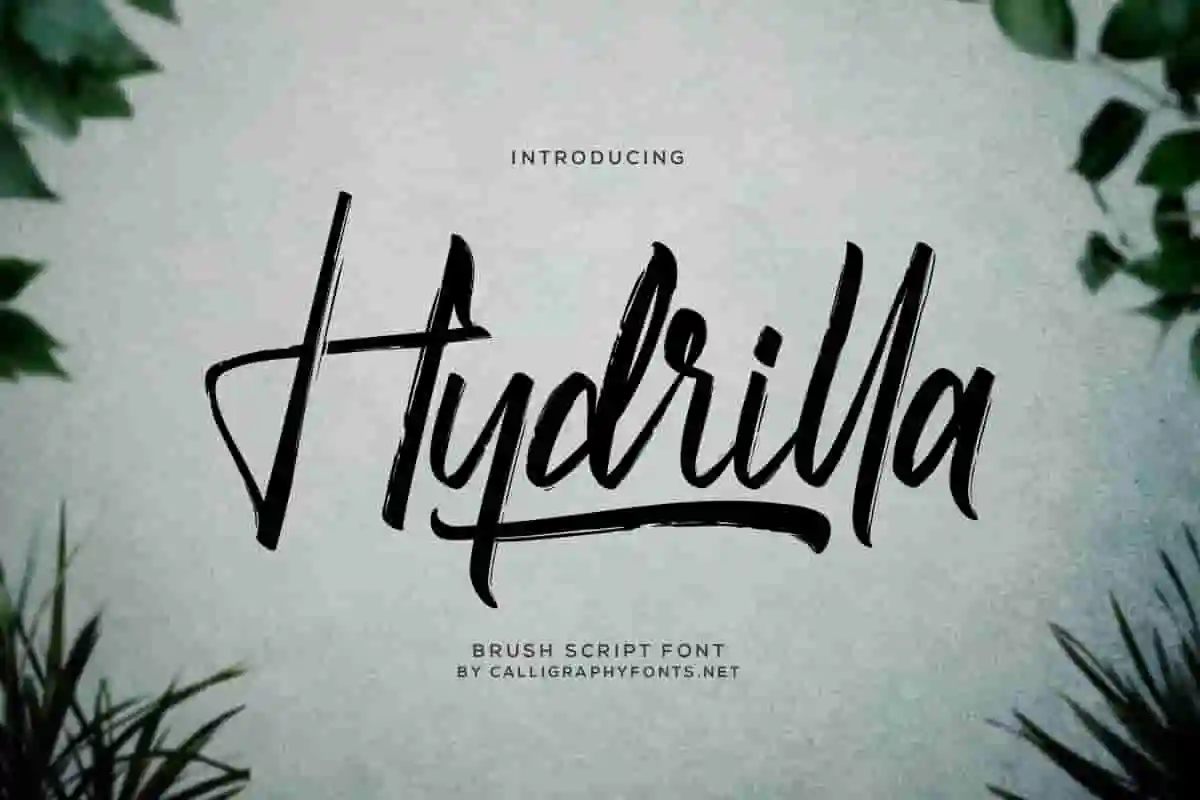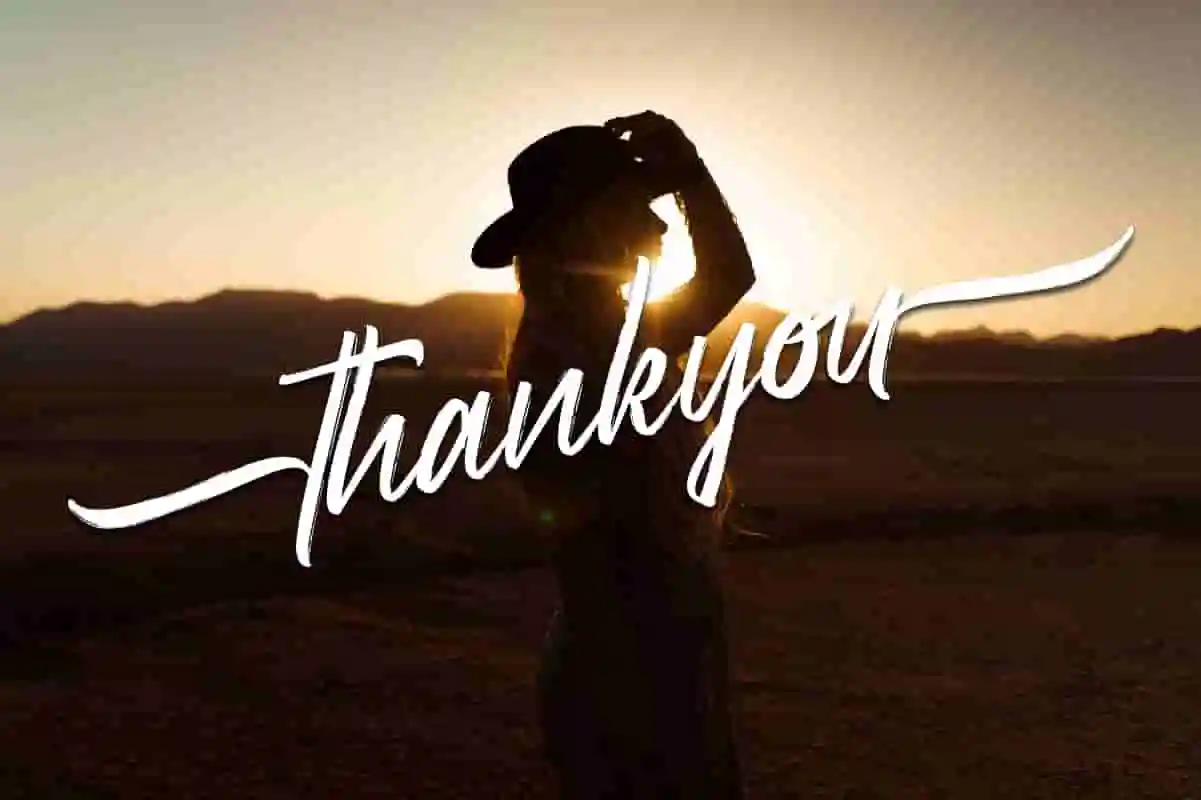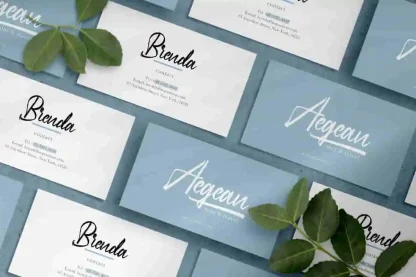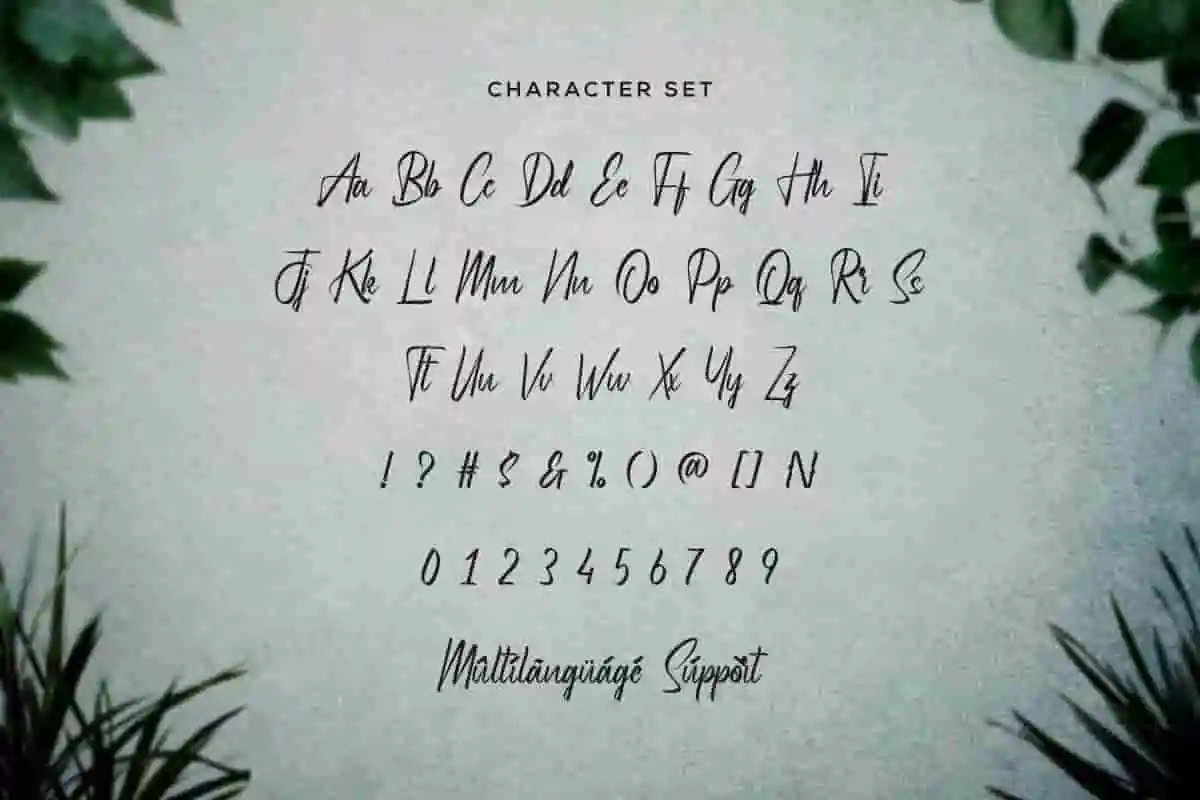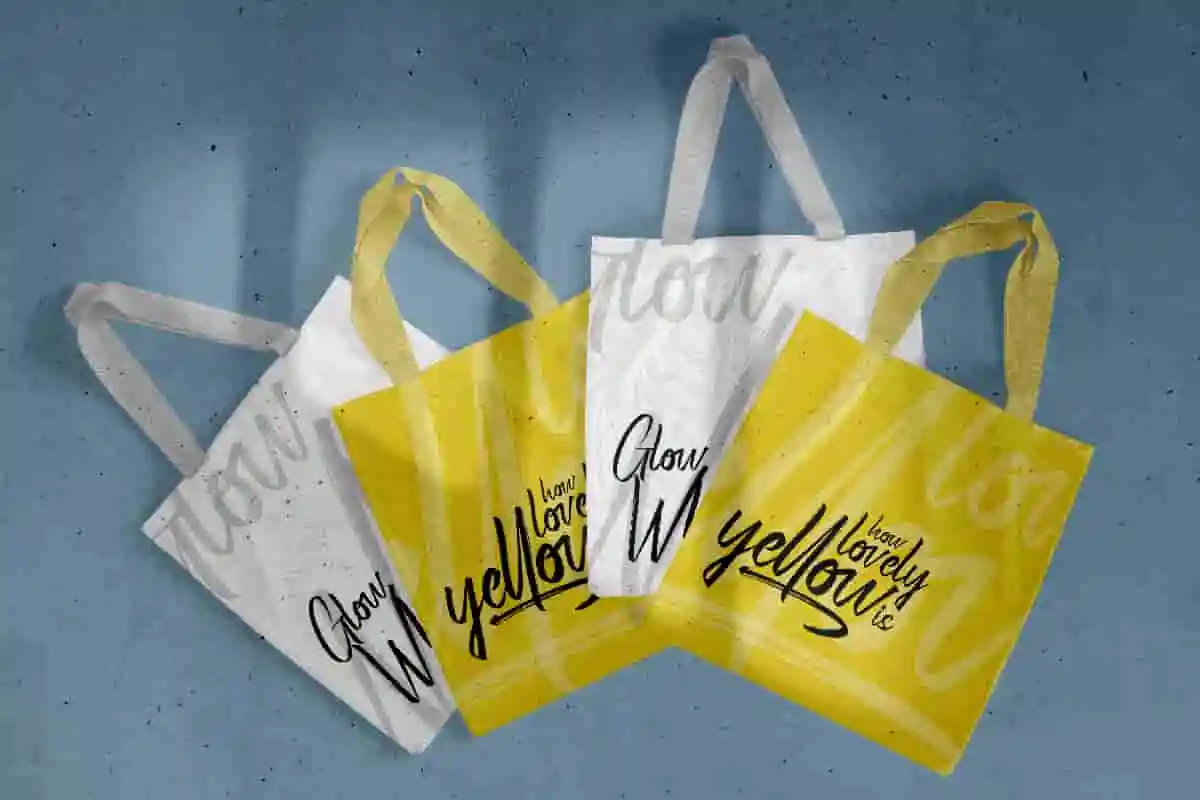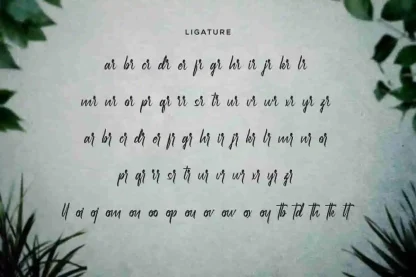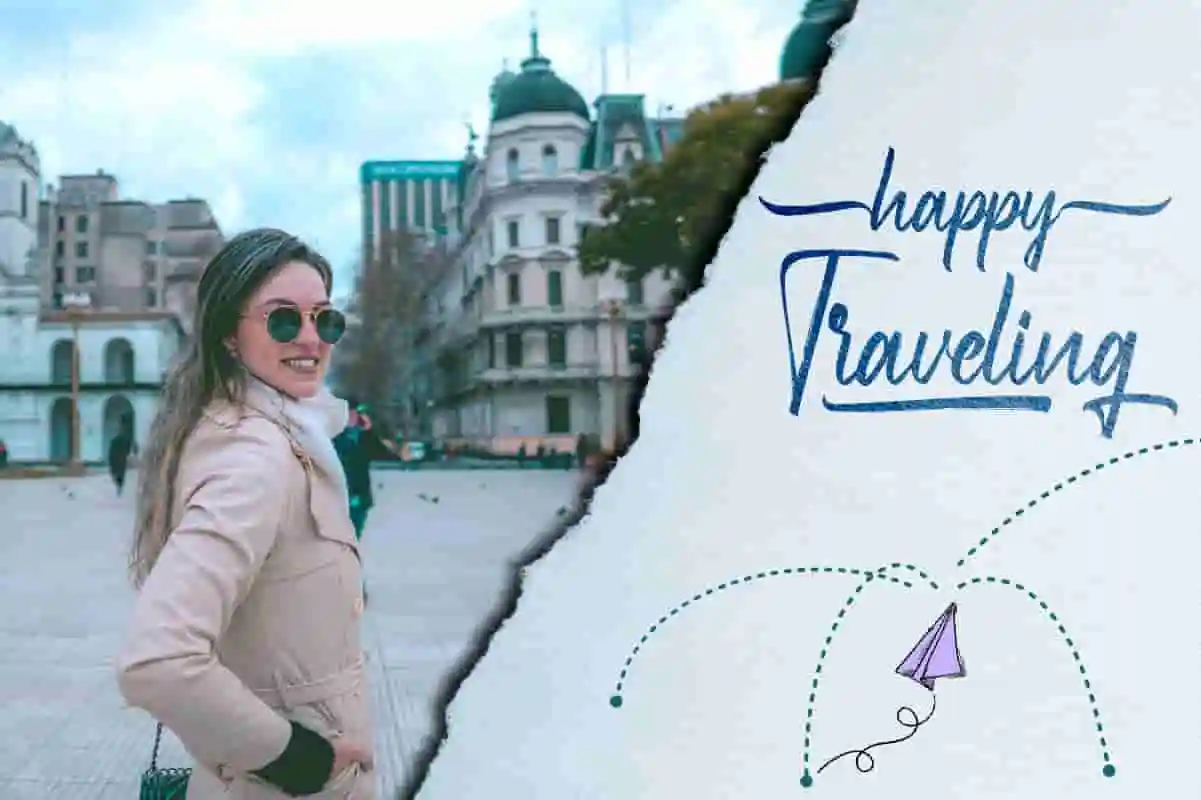
Hydrilla Textured Brush Font
Hydrilla Font is a stunning textured brush font by CalligraphyFonts.net, Buy License to use it for Commercial purposes. Awesome for branding projects, homeware designs, product packaging – or simply as a stylish text overlay to any background image.
Hydrilla Textured Font is a brush font with a unique texture; delivering a stylish script which is guaranteed to add an eye-catching appeal. The style of this font are stylish, classic, elegant, a fresh new handwritten brush script with a touch of class, and of course, outstanding looks 🙂
Hydrilla Font tested Work on PC & Mac, the font is inspired by old style and combination with Hand Lettering style. We made with personality touch every single curve. I hope this can make inspire you from your work. will be awesome for wedding, logos, handwritten quotes, product packaging, header, poster, merchandise, social media & greeting cards. Also great for branding projects, homeware designs, product packaging – or simply as a stylish text overlay to any background image.